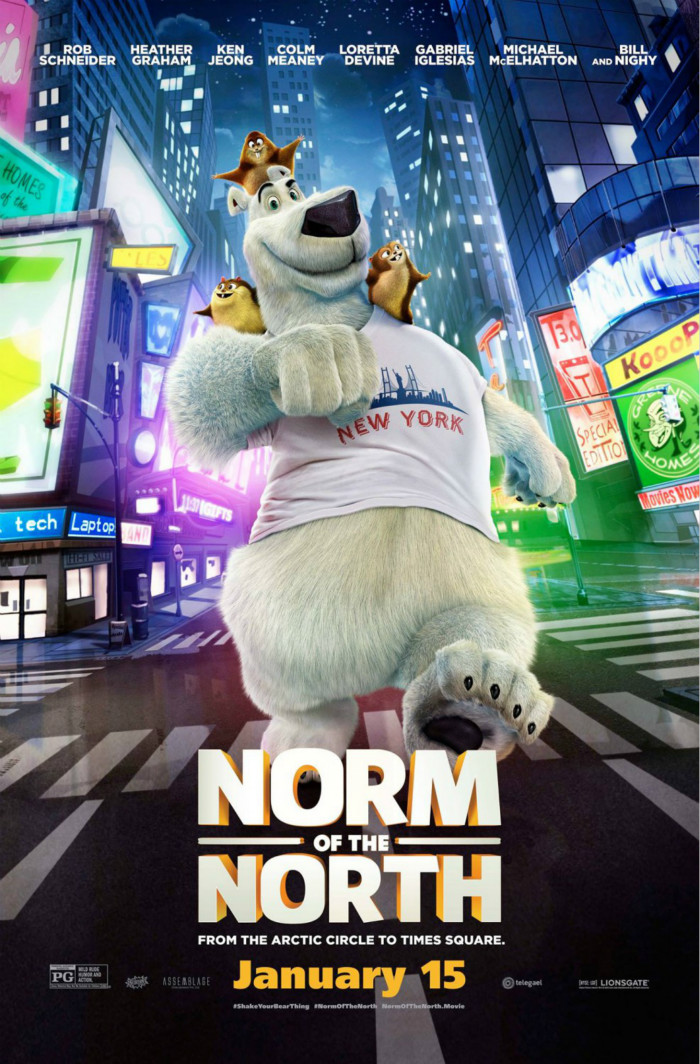
Norm of the North Font
AnimationNorm of the North is a 2016 animated film about a polar bear named Norm who travels to New York City to stop a real estate developer from building luxury condos in the Arctic.
The Norm of the North title in the poster resembles a neo-grotesque sans serif font named [Whitney Black](< https://api.fontbolt.com/api/theme-variant/749/purchase>) by Tobias Frere-Jones. Whitney was initially created as the institutional typeface for the Whitney Museum in New York.